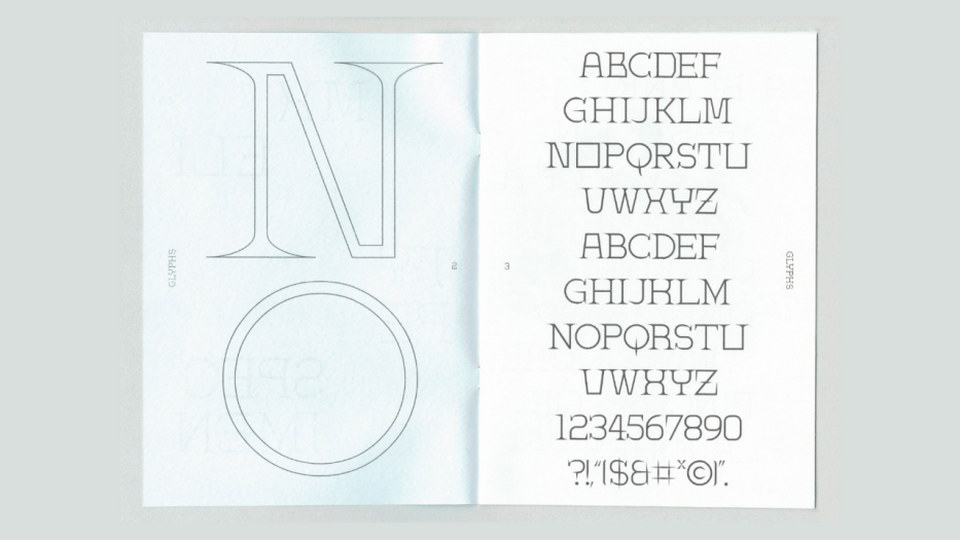
MX Eli Font MX Eli is a typeface inspired by types used in artisanal goods packages and other sleek, modern brands. It's a serif font without the varying widths of roman types with several fun alternate capitals to choose from. DOWNLOAD Facebook Twitter Pinterest VK Share by email Designed by: Micheal Xing Website License: Free for commercial use, OFL October 9, 2021 featured in Serif By Fontesk